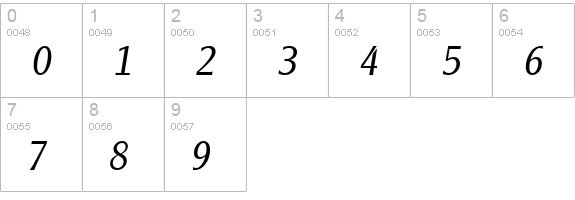
ClearGothicSerial-Light-Italic is a refined, elegant, italic variant in the ClearGothicSerial typeface family \xE2\x80\x94 well suited to elegant body text, refined sub-headings, and luxury branding.
ClearGothicSerial-Light-Italic is a modern and elegant font that exudes sophistication and style. With its sleek lines and subtle italics, this font is perfect for adding a touch of class to any project. The light weight gives it a delicate and refined appearance, making it ideal for use in designs that require a clean and minimalist look. What sets ClearGothicSerial-Light-Italic apart is that it is available for free download at FontsMarket.com. This means you can easily access this high-quality font without any cost, making it a valuable addition to your font collection. Whether you are designing a website, creating a logo, or working on a print project, ClearGothicSerial-Light-Italic is sure to elevate your design with its timeless appeal and versatility. Download it today and add a touch of sophistication to your next project.